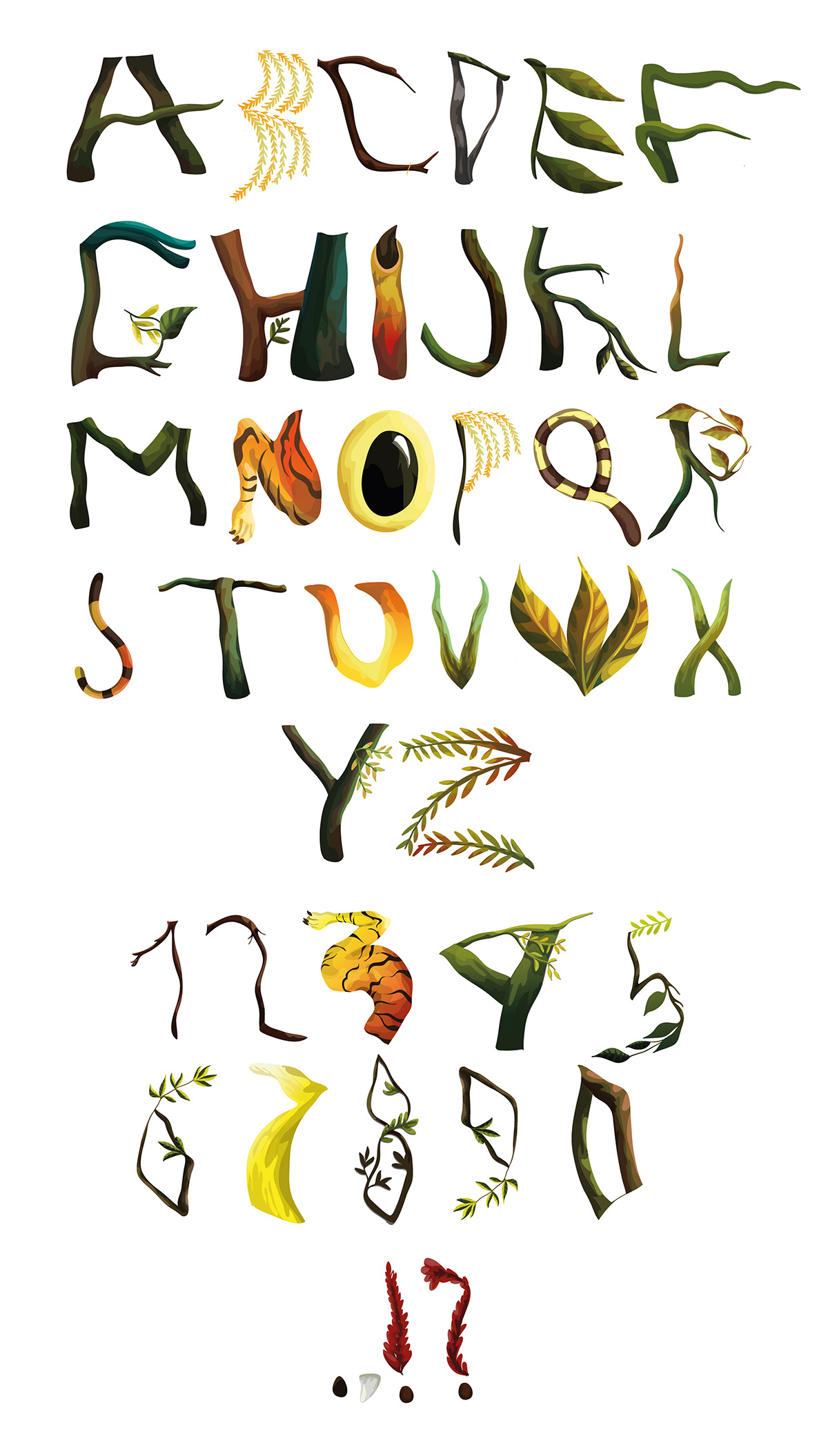
"Jumangi" font inspired by the painting of Henri Rousseau
The font "Jumanji" is very grotesque, decorative and attracts a lot of attention. It can be used to distinguish the text and give it uniqueity. The font "Jumanji" will give uniqueness to any object on which it will be written.